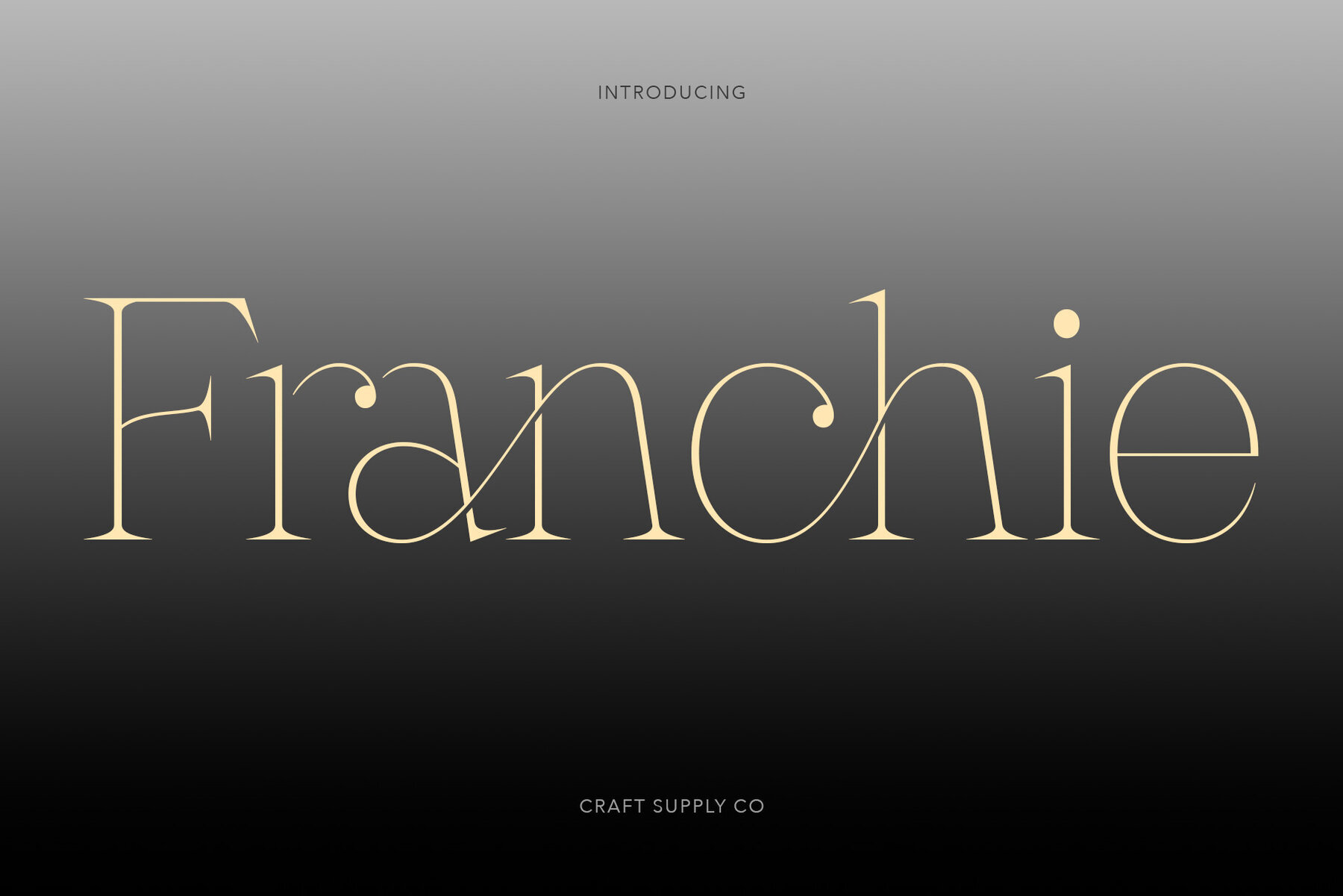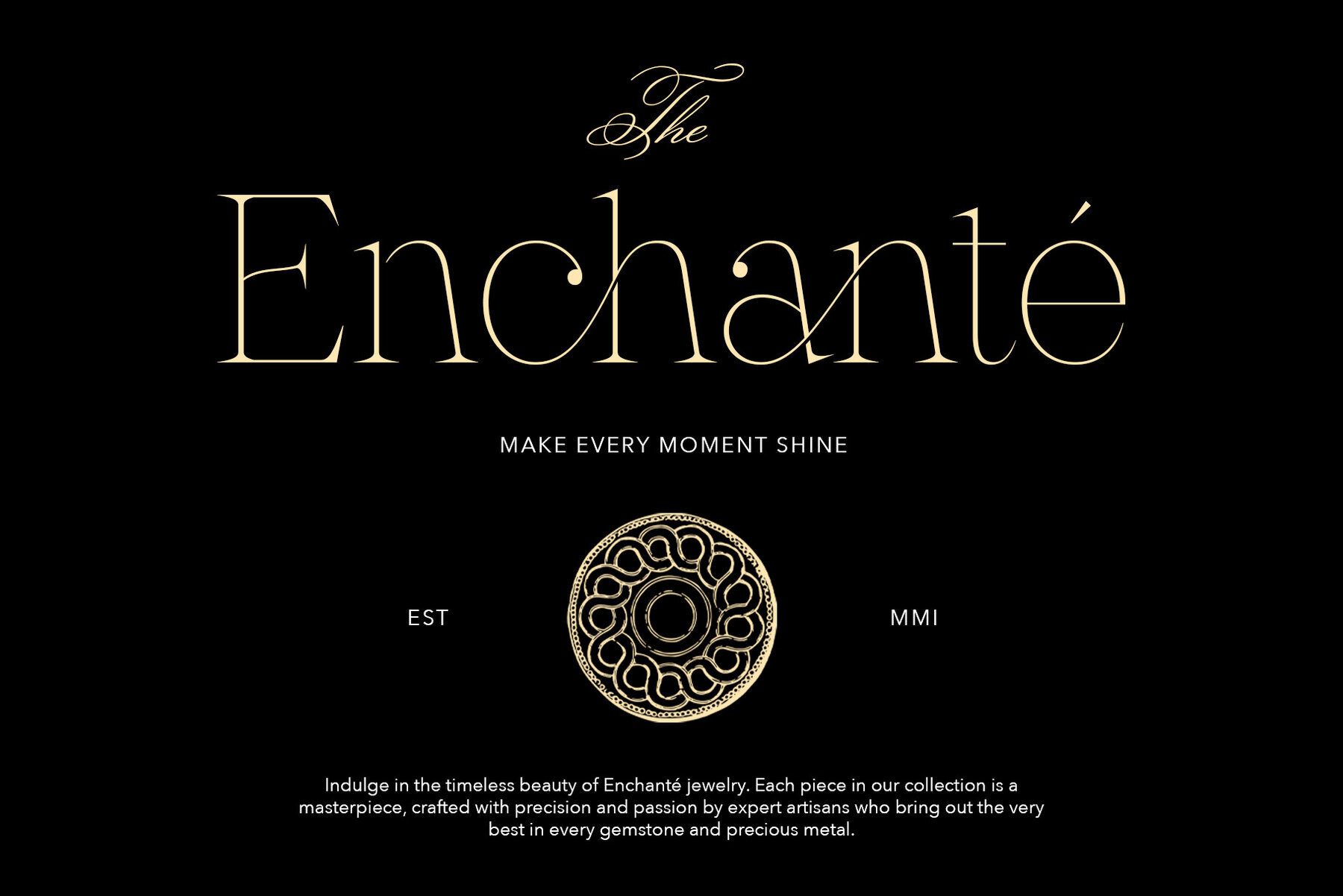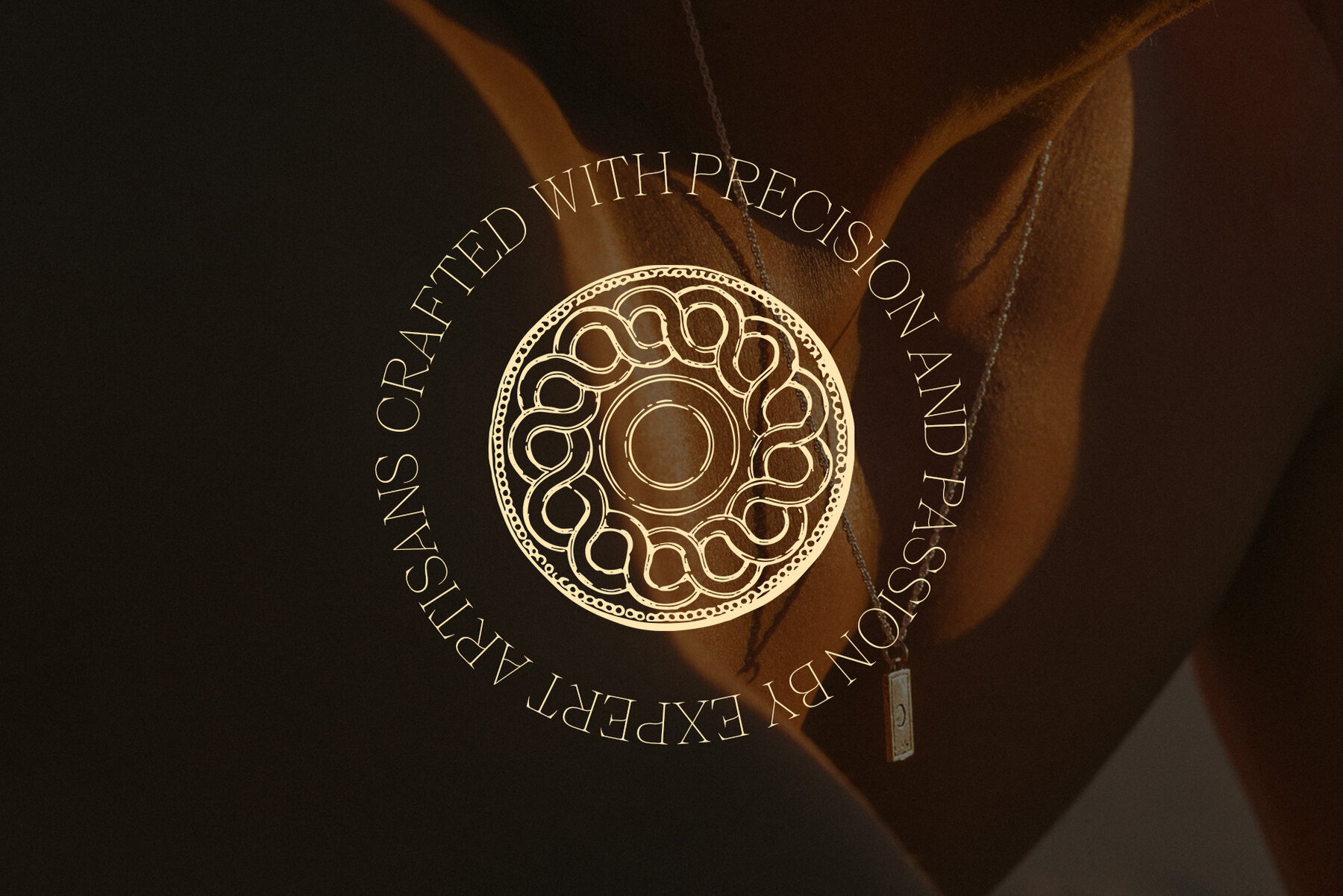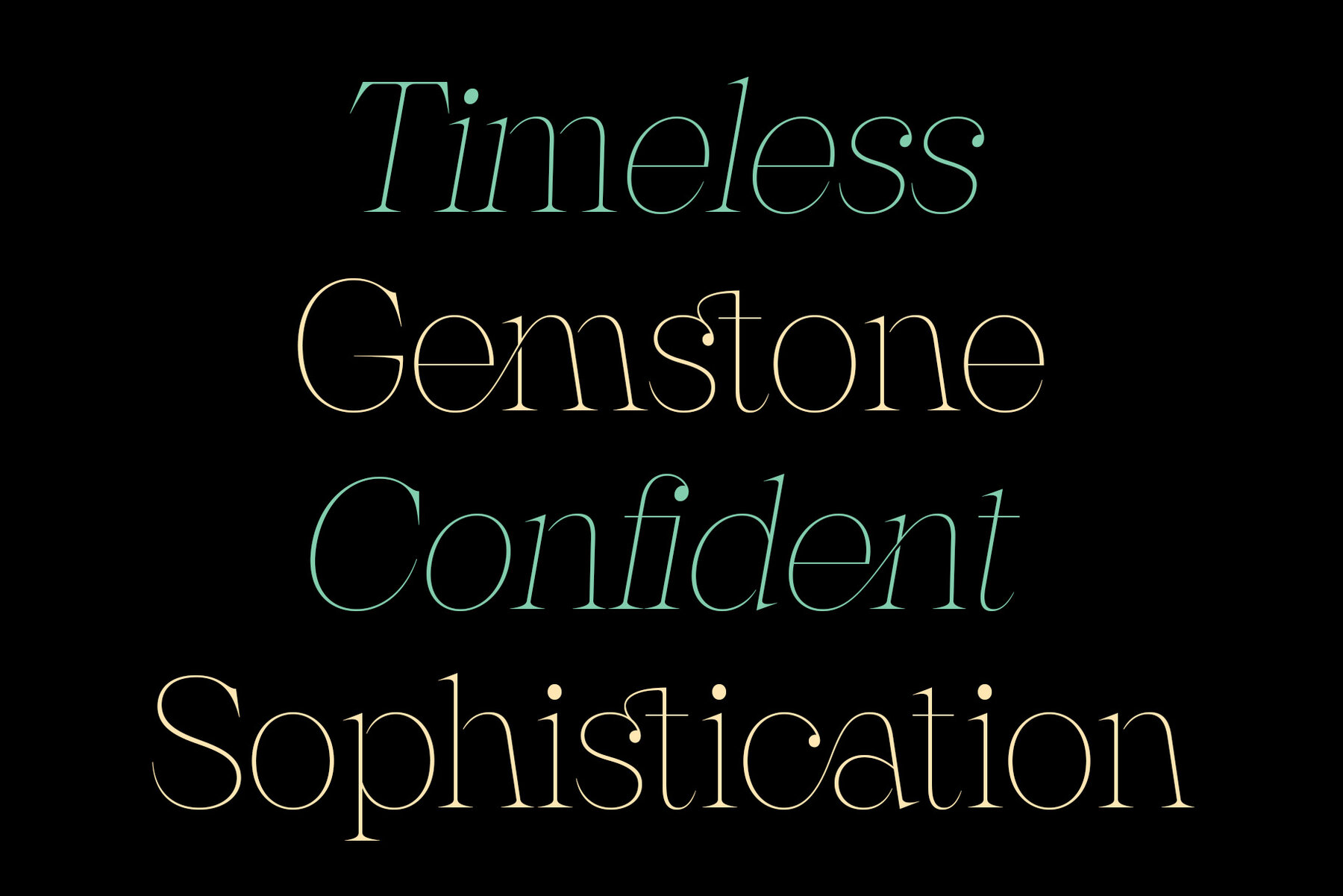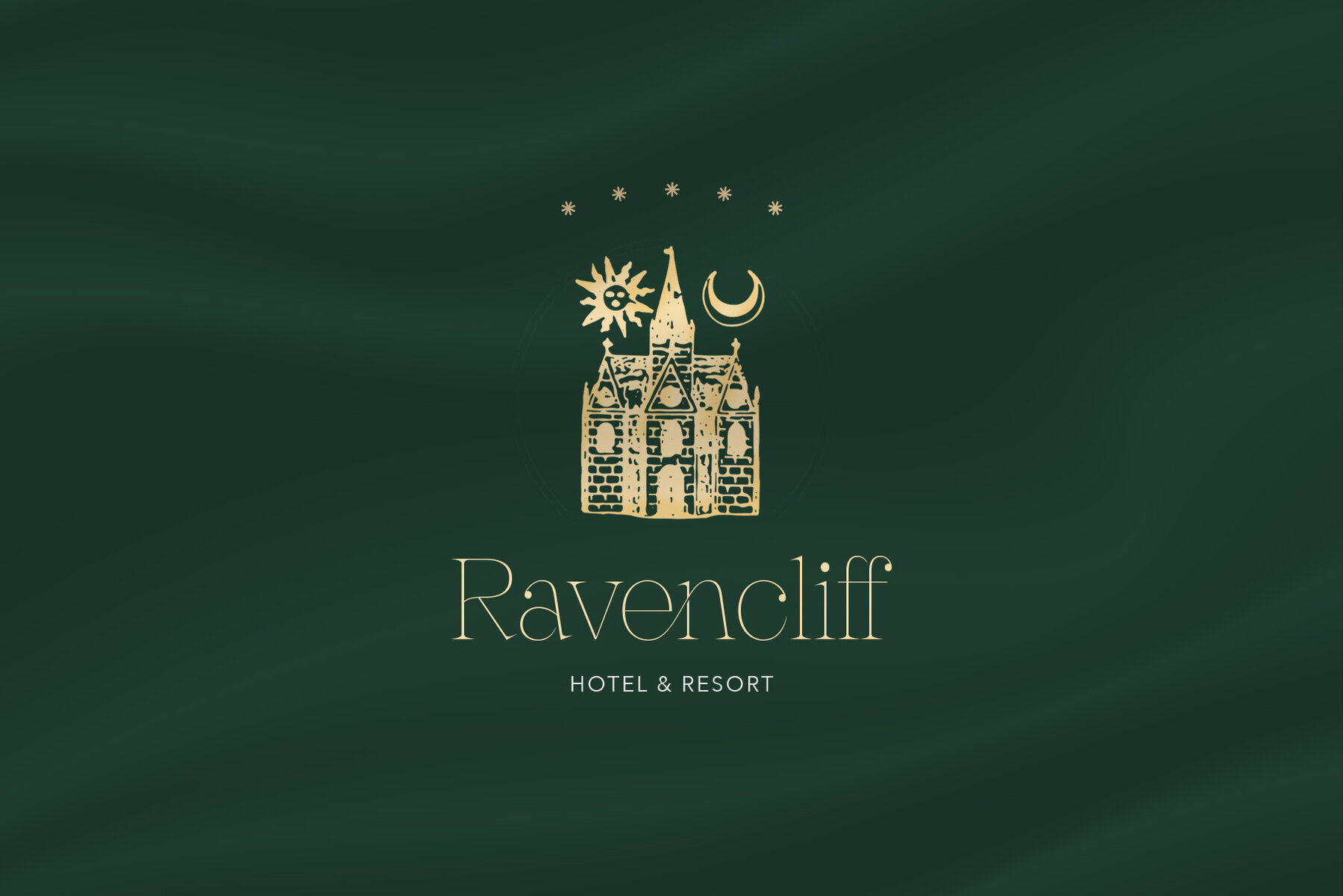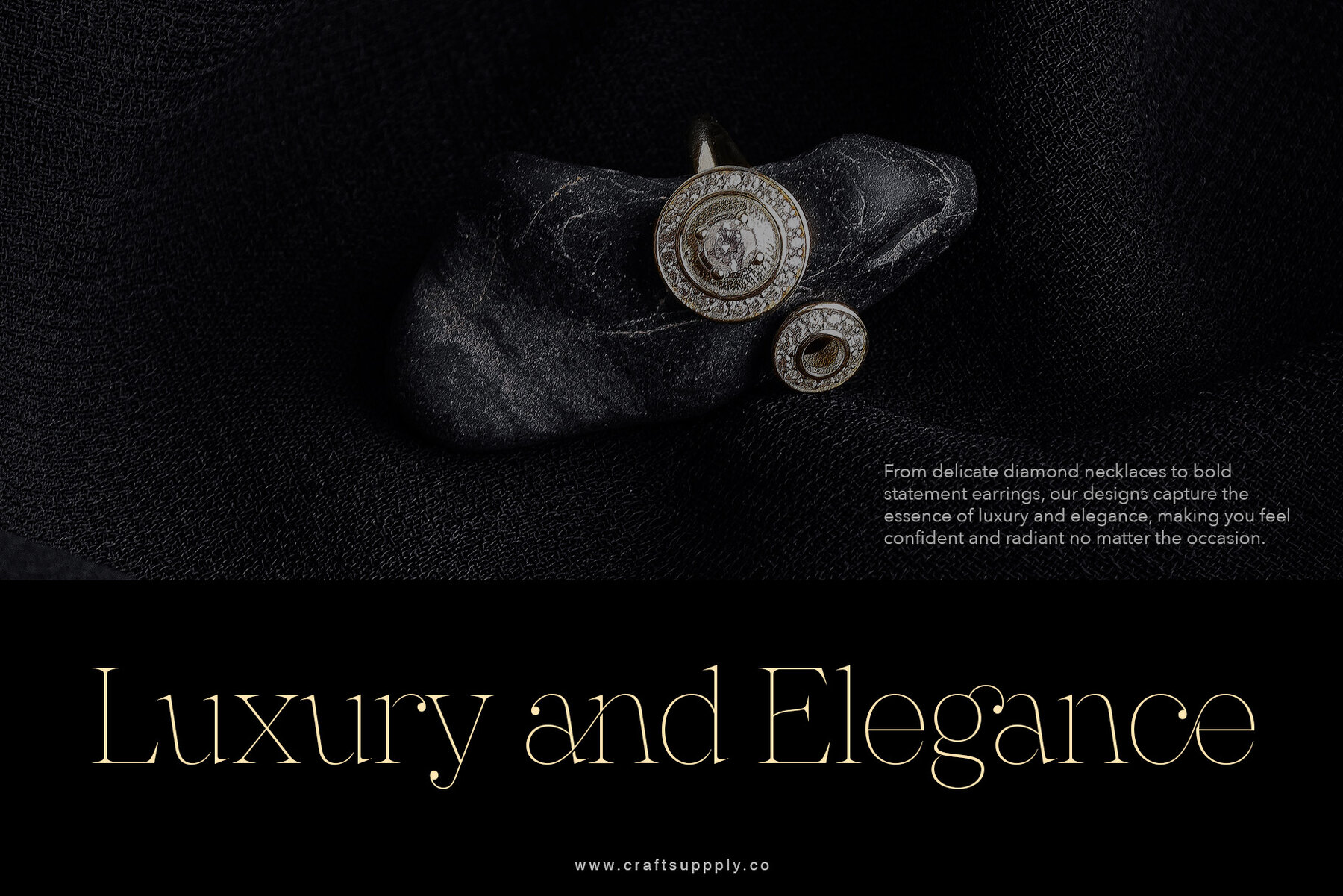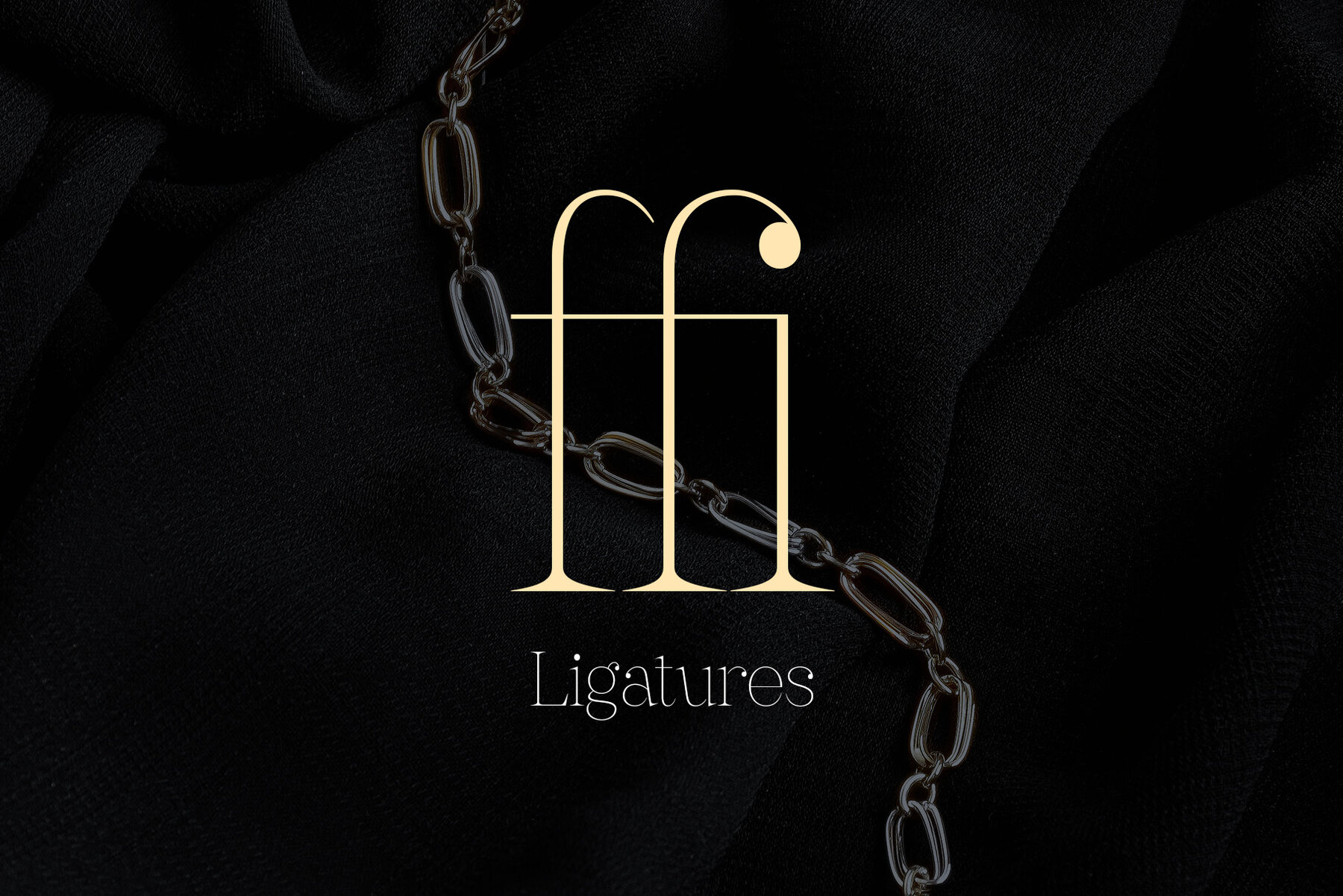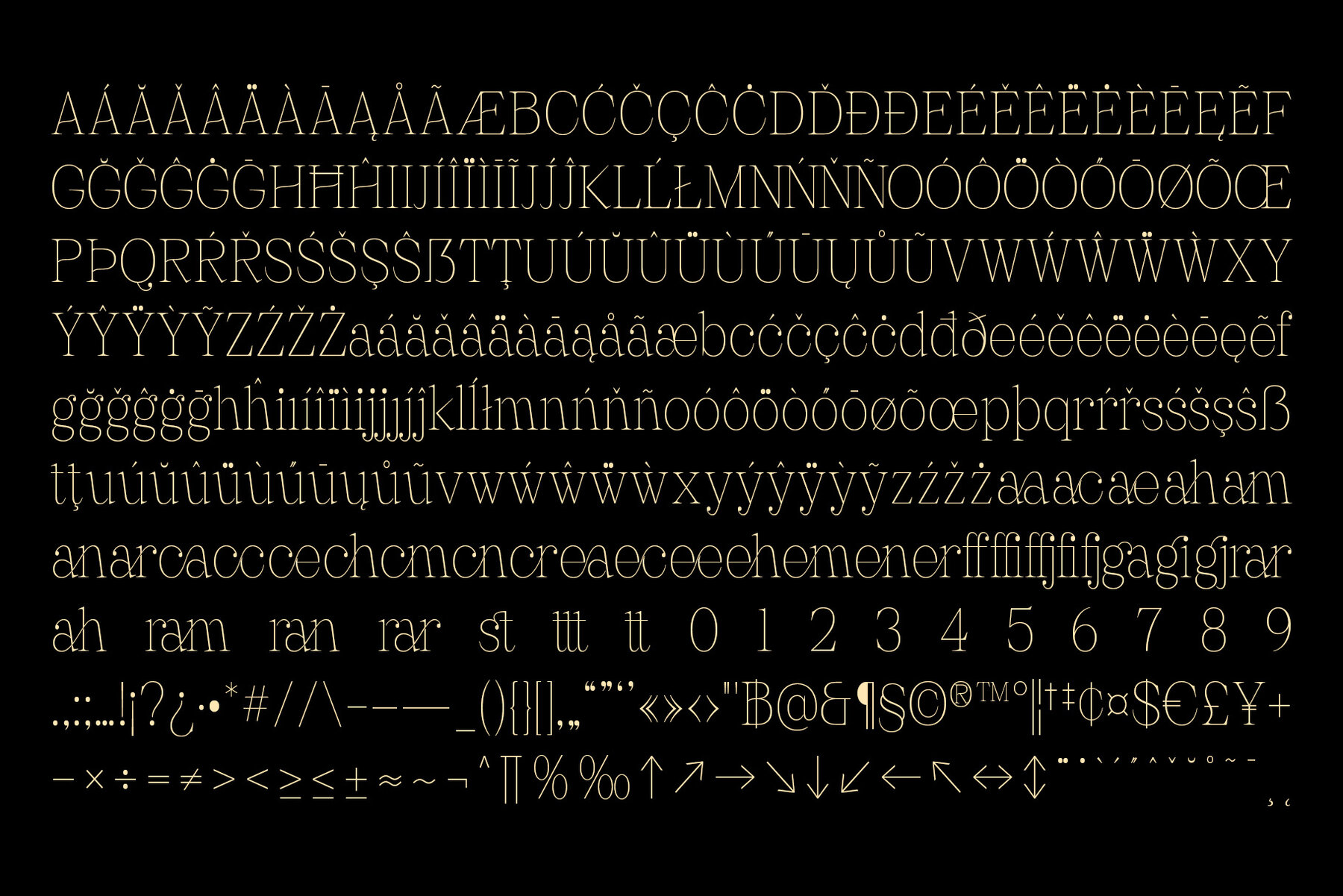
Franchie Font
Franchie is a modern elegant font features clean and minimalist design with thin strokes and unique shapes, incorporating geometric elements for symmetry and balance. This font is ideal for modern branding and advertising, exuding refinement and sophistication.
Franchie Regular
Franchie Italic
Features :
- Numerals & Punctuations (OpenType Standard)
- Accents (Multilingual characters)